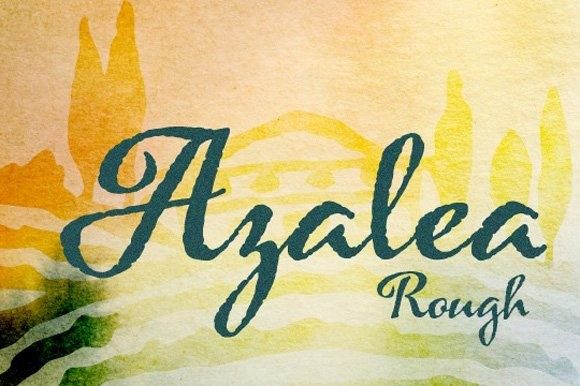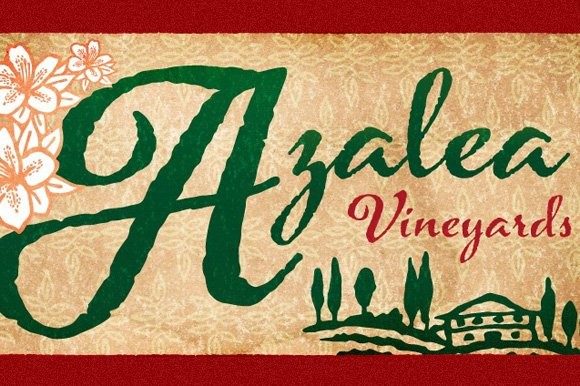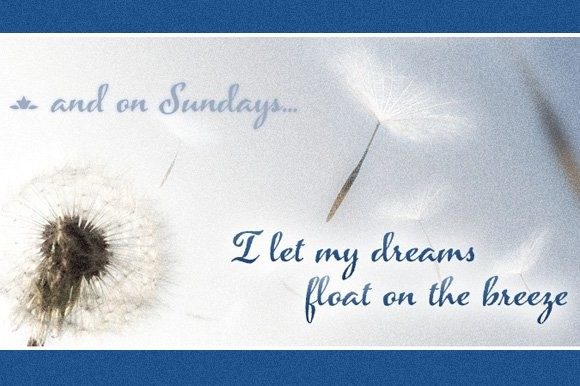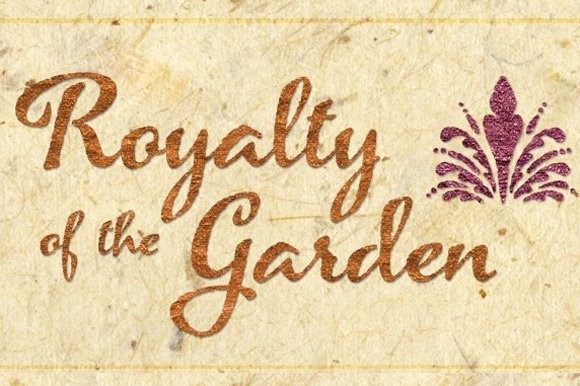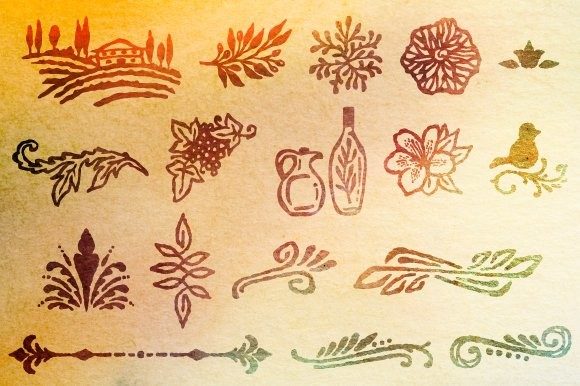
Azalea Rough Font
About Azalea Rough Font
Azalea Rough is a beautiful duo (script and dingbats) font. Careful, inky strokes reference classic brush script styles of the 1950s, but its jaunty angularity is distinctly modern. Artfully irregular thicks and thins lend it an organic feel. This font is PUA encoded, which means you can access all of the glyphs and swashes with ease!